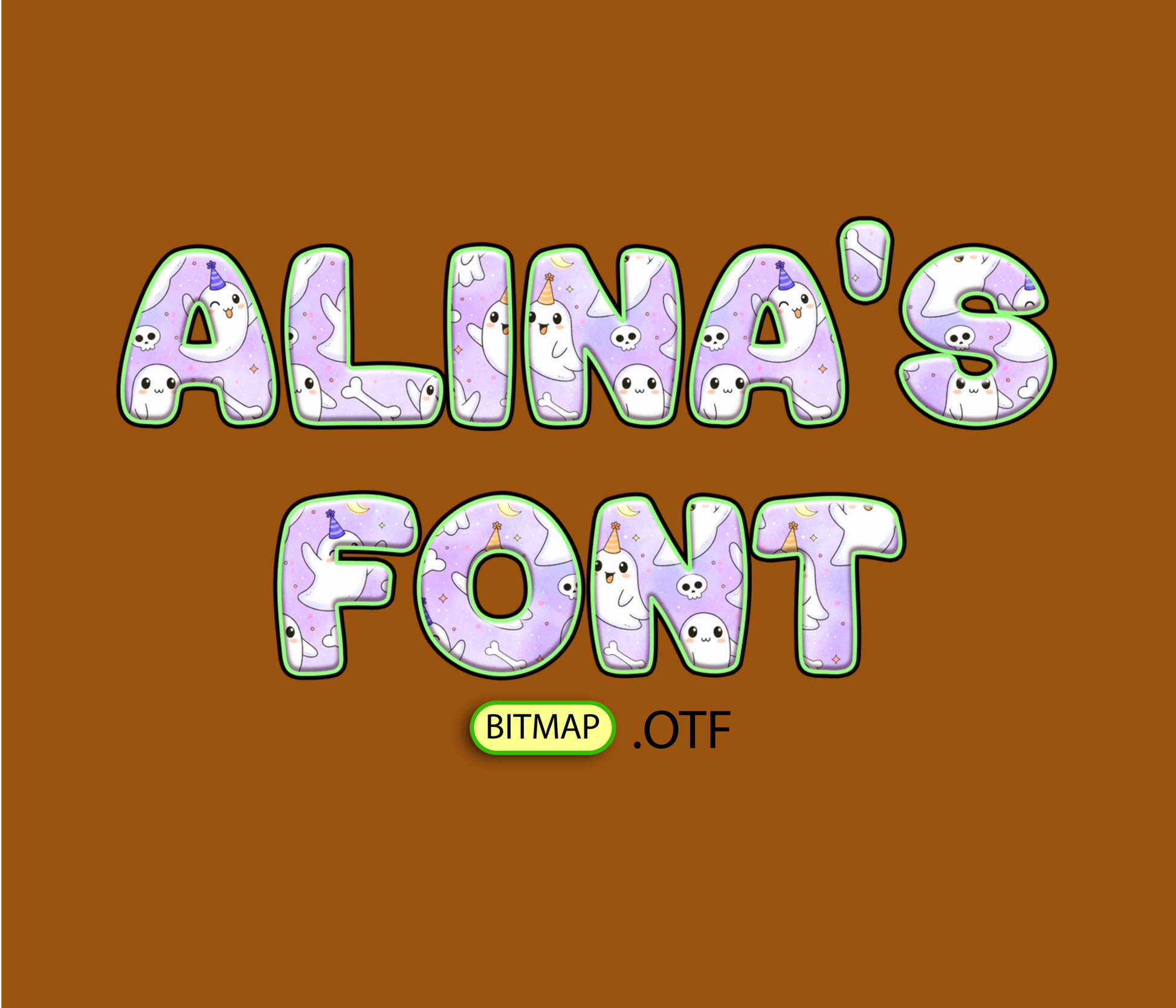
Ghostly Halloween Display Pattern Font
Step into the spooky world of haunted celebrations with our Ghostly Halloween Display Pattern font, capturing the essence of spectral decorations and eerie festivities. Perfect for Halloween fans, party planners, event organizers, and designers, this font brings the chilling, mysterious spirit of supernatural displays to your projects. Create spine-tingling materials, merchandise, or digital content with the haunting energy of ghostly celebrations.
Our Ghostly Halloween Display Pattern font features spooky, decorative lines and phantom-inspired characters reflecting the world of haunted festivities. Ideal for:
- Event Promotions: Create haunting invites, posters, and banners for Halloween parties, spooky screenings, and costume celebrations that capture the spirit of spectral displays
- Merchandise Design: Perfect for t-shirts, posters, and accessories that showcase the eerie aesthetic of ghostly decorations and haunted celebrations
- Digital Media: Enhance websites, blogs, and social media with spooky headers and graphics that express the mystery of supernatural festivities
- Halloween Content: Add authentic flair to party decorations, seasonal projects, and creative designs inspired by ghostly celebration tales
- Personal Projects: Bring spine-chilling excitement to scrapbooking, DIY crafts, and home decor inspired by the world of haunted displays
Our font pays tribute to the iconic world of Halloween celebrations, empowering your designs with its spooky and mysterious spirit. Whether crafting promotional materials, designing merchandise, or adding a haunting touch to personal projects, this font communicates the chilling essence of ghostly displays. Ready to inject supernatural excitement into your creations? This font is your key to exciting, impactful design.